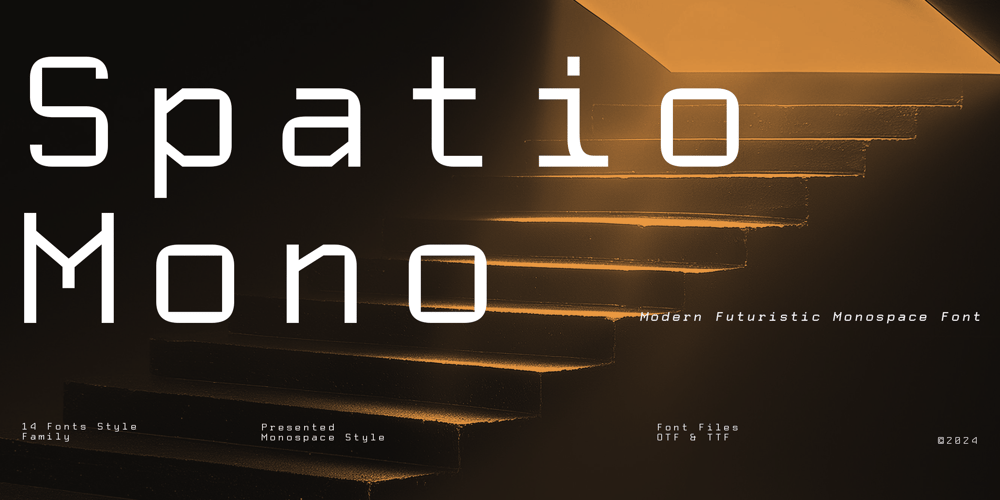
PNA Spatio Mono Font Family was designed by Arief Nurcahyo and published by Prominent and Affluent. PNA Spatio Mono contains 14 styles and family package options. The Ultimate Monospace Font for the Modern Era!Step into the future with Spatio, a cutting-edge monospace font family inspired by the boundless expanse of space. With 14 distinct styles, Spatio seamlessly blends modernity and futurism to elevate your design projects. Whether you’re coding, designing interfaces, or creating digital art, Spatio offers precision and a sleek aesthetic that stands out in any context. Explore the limitless potential of your creativity with Spatio today!